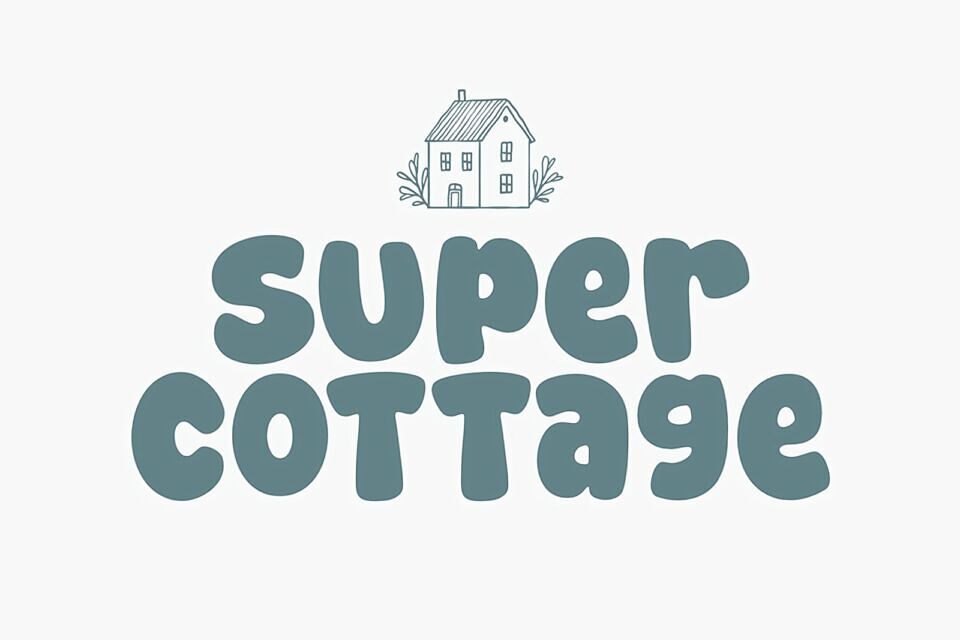
Super Cottage is a bold, playful, hand-crafted font with rounded, bouncy shapes that exude joy and energy. Its soft curves create a friendly, inviting vibe, perfect for logos, packaging, posters, children’s books, and creative branding. With a lively personality and handcrafted charm, it adds warmth and playfulness to cheerful messages or quirky headlines, making every design feel approachable and fun.